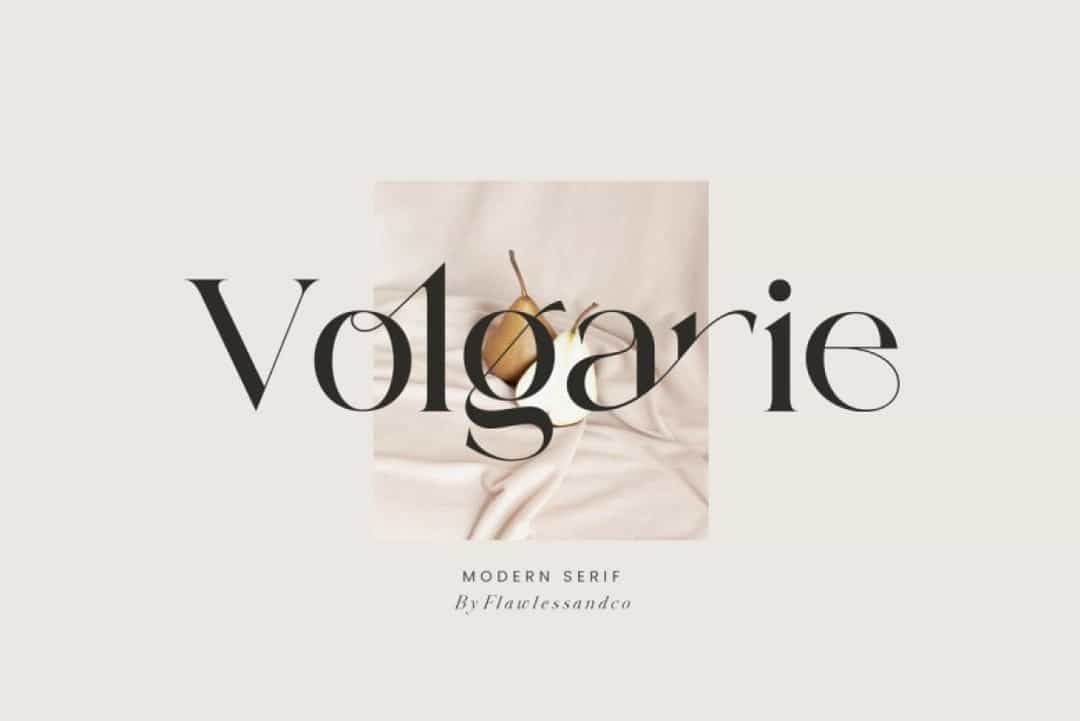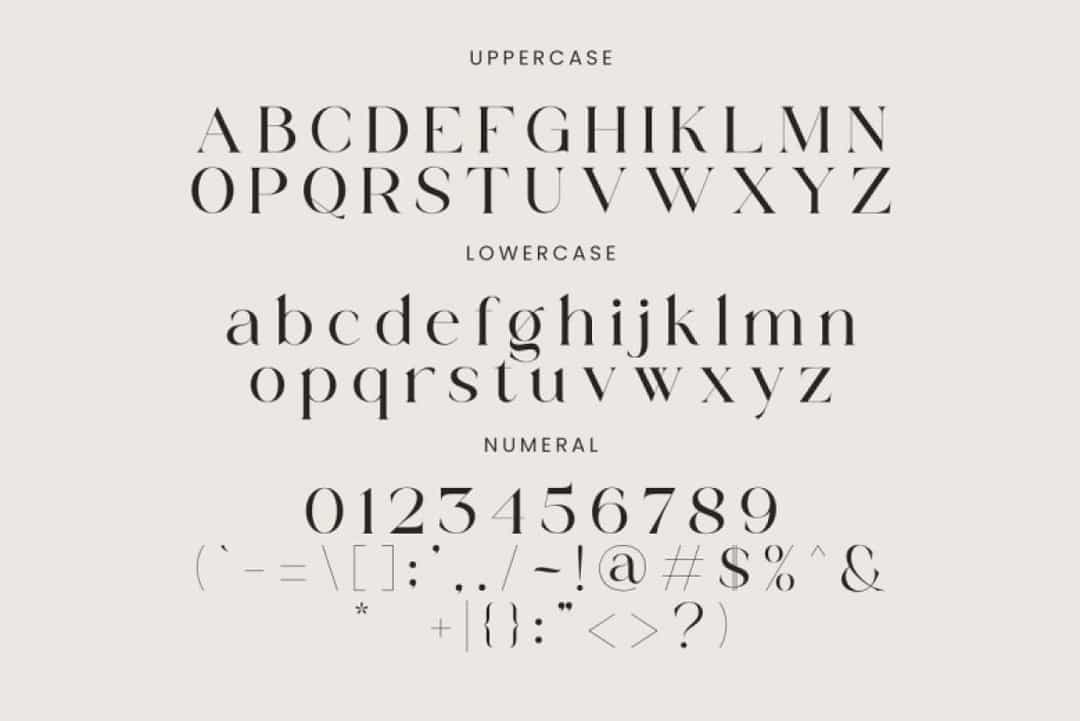
Volgarie is a contemporary serif typeface which adds an individualistic touch to your designs! Featuring thin lines or flourishes at the ends of strokes that form symbols and letters, as well as various ligatures and alternates in every character, display fonts are ideal for use at larger sizes such as headlines and titles, branding materials, invitations, logos or anything that needs to be noticed!